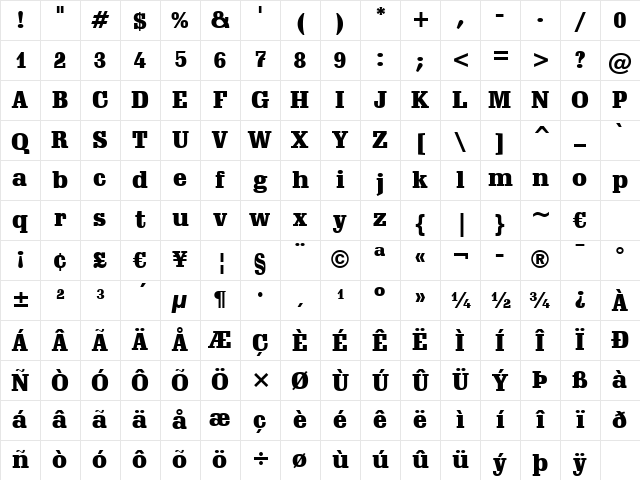
Schadow Blk BT Black
Design Context for Schadow Blk BT
Schadow Blk BT is a composed and adaptable typeface that performs quietly and consistently across a wide range of design contexts.